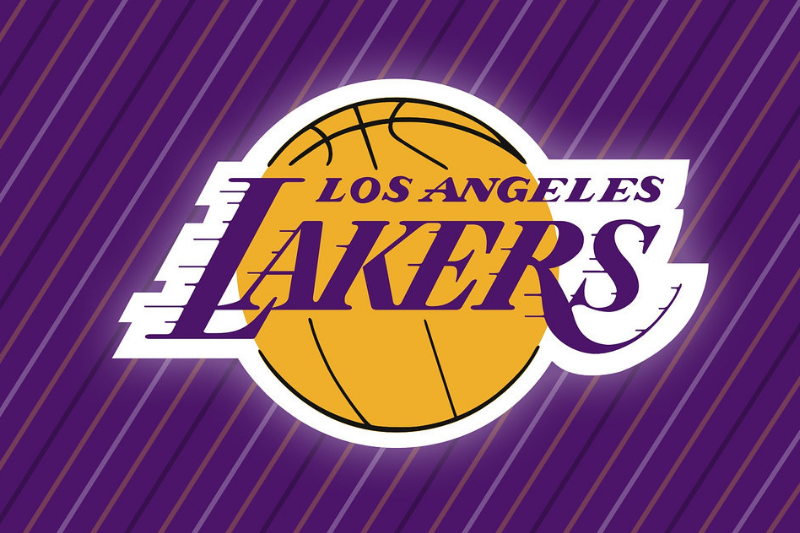
Lakers Font Generator
About the Lakers Font Generator
The Los Angeles Lakers are one of basketball's most storied franchises, and their visual identity β€” gold and purple, iconic block lettering, and the swagger of Showtime β€” is recognized worldwide. The Lakers font style brings that championship energy to any design, whether you're a die-hard fan or just love the aesthetic.